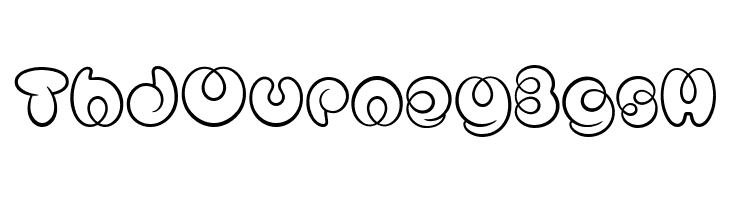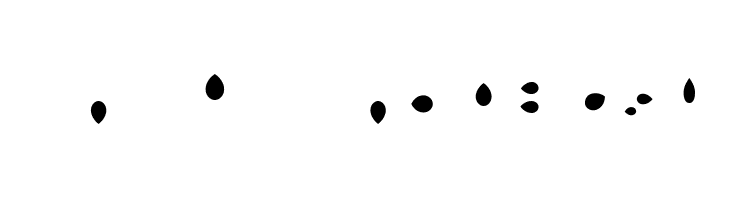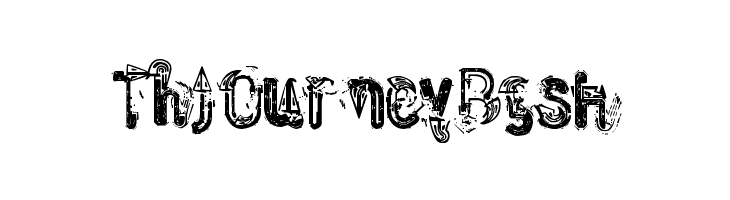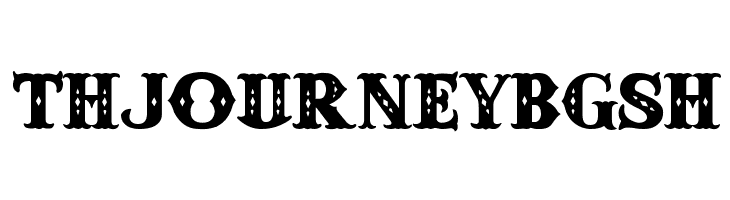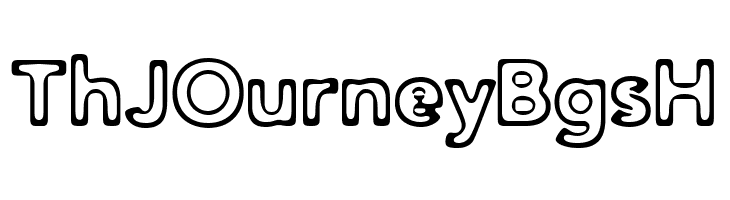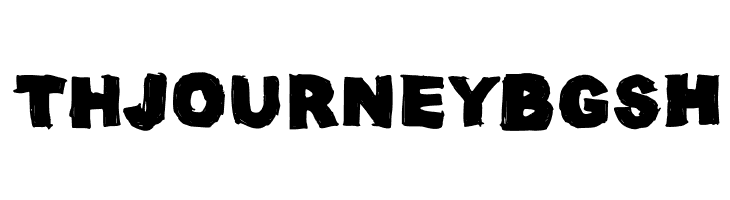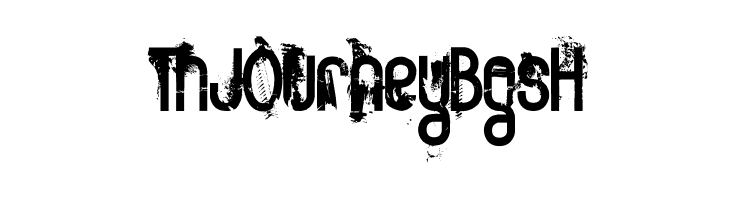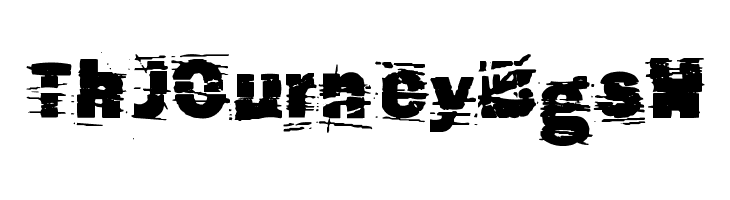
A bold, playful font with a shadow effect, perfect for lively designs.
A bold, rounded font with a playful and modern retro vibe.
A distressed, grungy font with a bold, chaotic aesthetic.
A bold, decorative font with intricate Western-inspired details.
A distressed, grungy font with a chaotic, textured appearance.
A bold, distressed font with a grunge aesthetic and irregular textures.